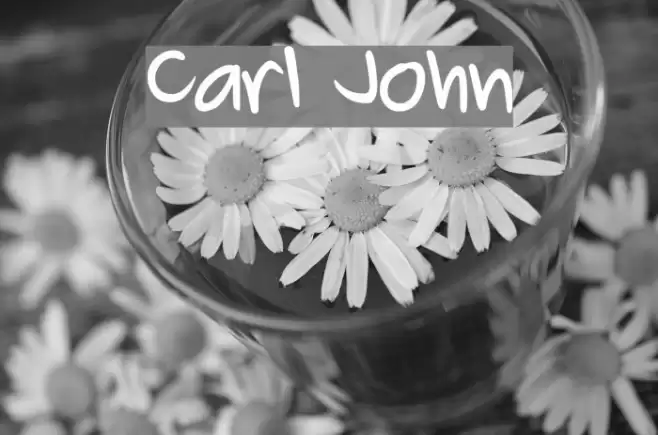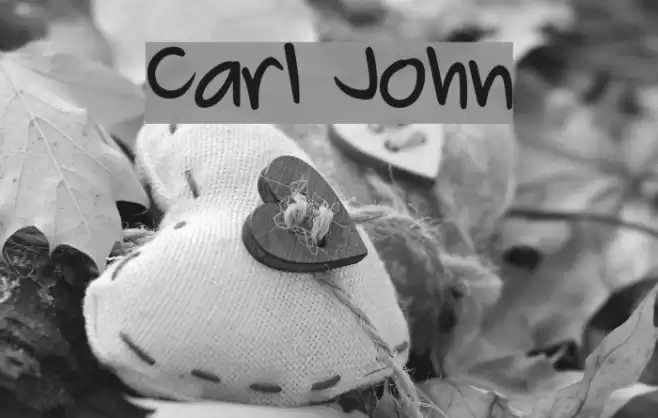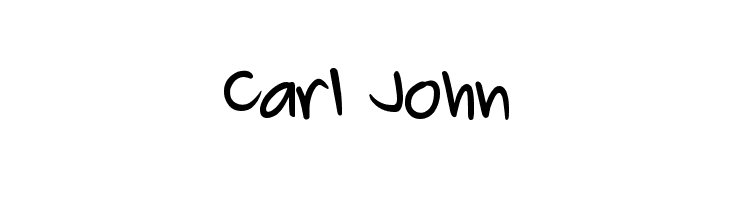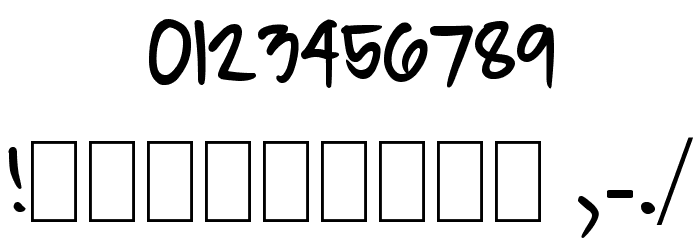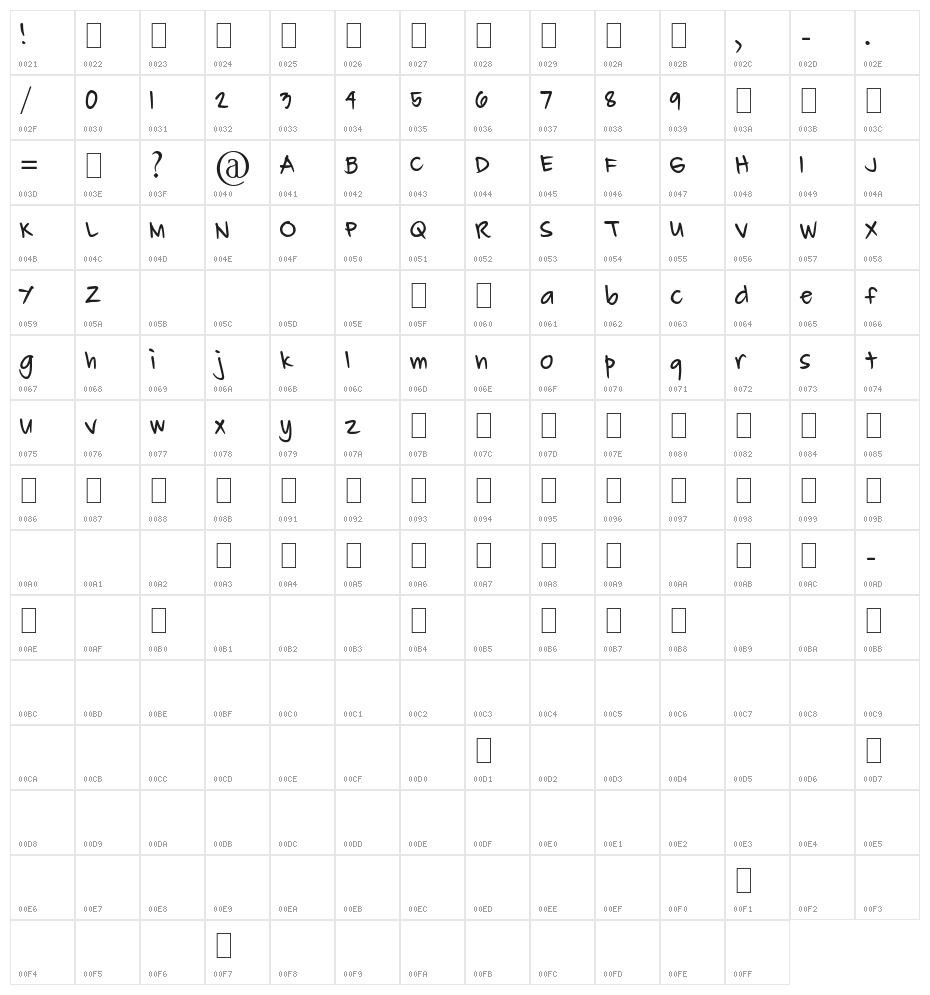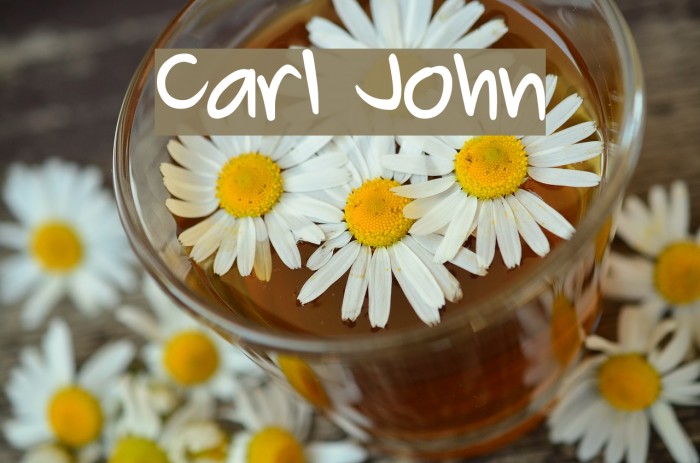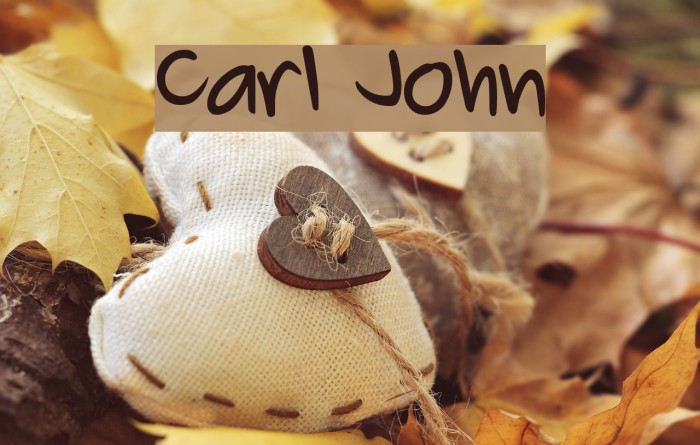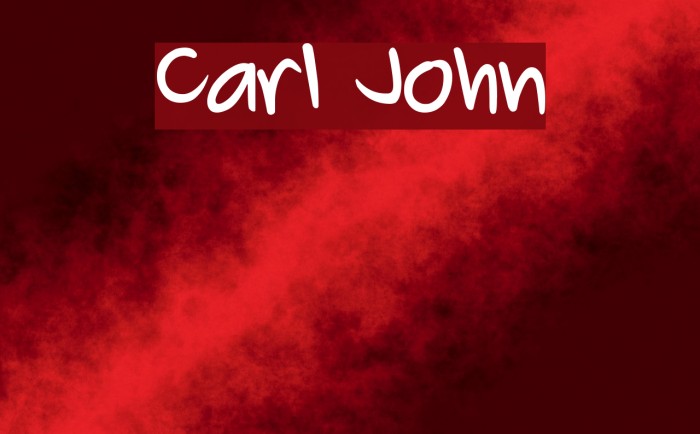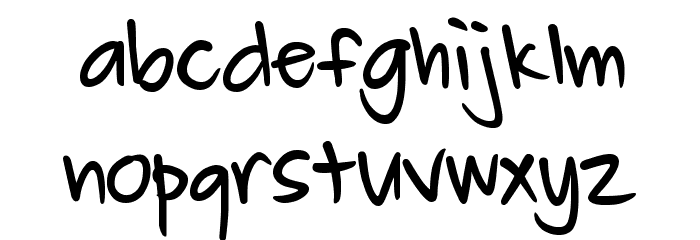
Carl John Font
Carl John Description
This font features a playful and casual handwritten style, characterized by its smooth, flowing curves and slightly irregular letterforms. The uppercase and lowercase letters maintain a consistent style, with rounded edges and a friendly appearance. The numerals are clear and easy to read, matching the overall aesthetic of the alphabet. The special characters are well-integrated, maintaining the same casual and approachable feel. This font is ideal for projects that require a personal touch or a relaxed, informal vibe.
A playful, casual handwritten font with smooth, flowing curves from Handwritten fonts.
- Proposed Projects: Ideal for greeting cards, personal invitations, children's books, and informal branding.
- Overall Style: Casual
- Use Case: Headlines, Informal text, Personal projects